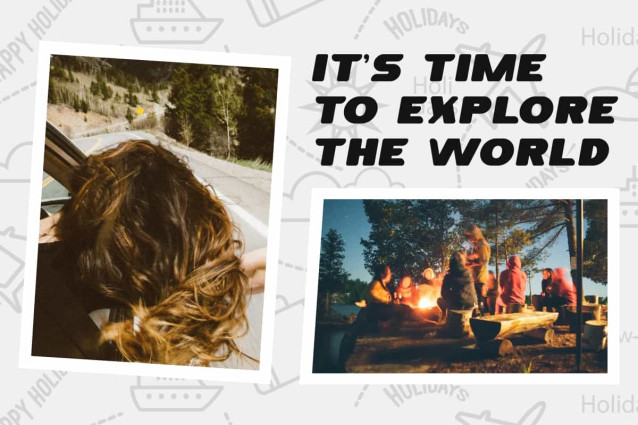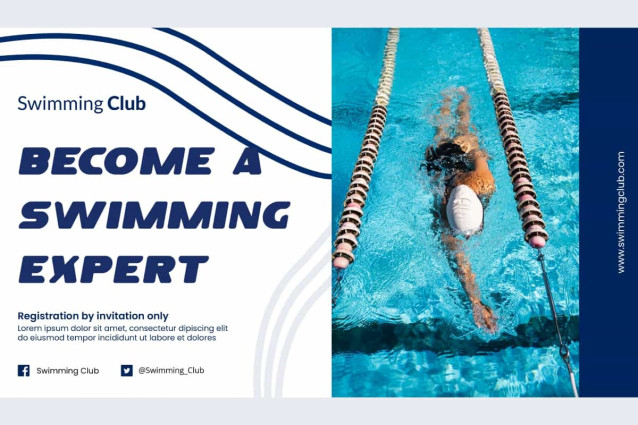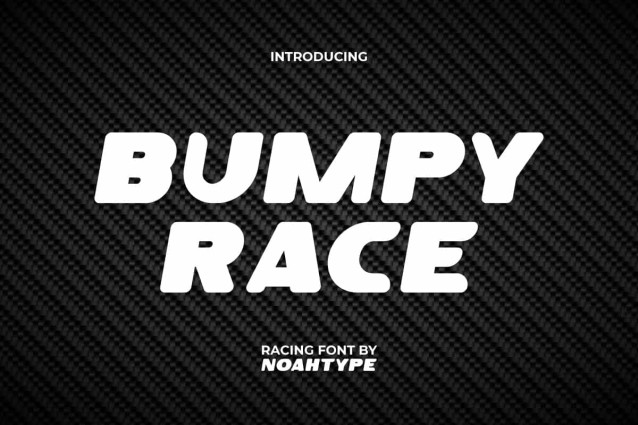
Bumpy Race Font
Bumpy Race Font is a stylish and modern racing themed font, created by NoahType. This font has a casual style that will fit into a variety of designs and will be clearly readable. This font will be suitable for a lot of projects, such as custom design, stationery, label, poster, signage, catalog, cover, quotes, website, and more!
Bumpy Race Font includes full set of Uppercase and Lowercase Basic Characters, Numerals and Punctuation. This font has an cool appearance that will make you believe it is the perfect choice for many industries, such as sports, racing, game, automotive, advertisement, café, event organizer, fashion, printing, publishing, etc.